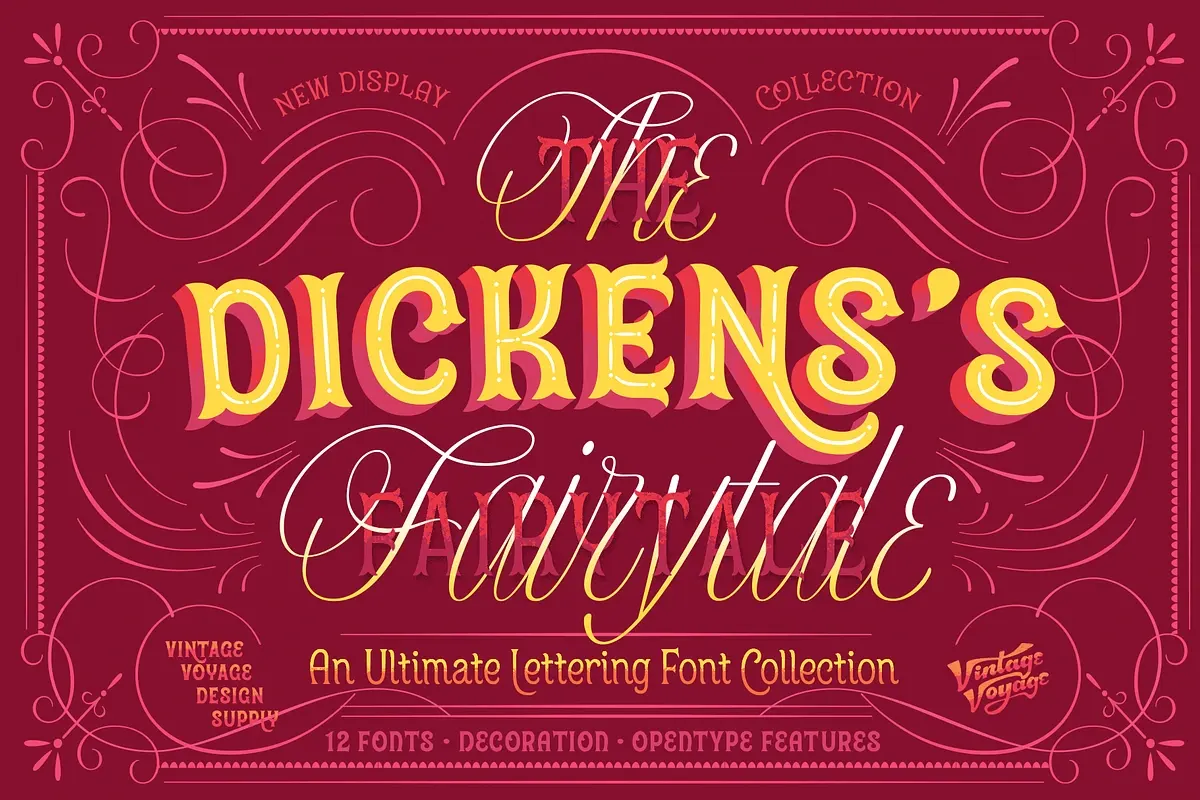
The Dickens's Fairytale • Collection Free Download
The Dickens's Fairytale Font Collection Free Download is a whimsical and vintage-inspired typeface set that evokes the charm of classic storybooks and timeless tales. With ornate details, decorative flourishes, and old-world character, this collection is perfect for book covers, fantasy projects, theatrical posters, invitations, and magical branding.
The Dickens's Fairytale Font Collection Free Download offers a variety of styles that blend beautifully for rich, layered typography—ideal for capturing a nostalgic or enchanted mood. Whether you're crafting a children's story layout or designing a whimsical product label, this font collection adds storytelling magic to your work. Download it today and bring a touch of fairytale wonder to your next design adventure.